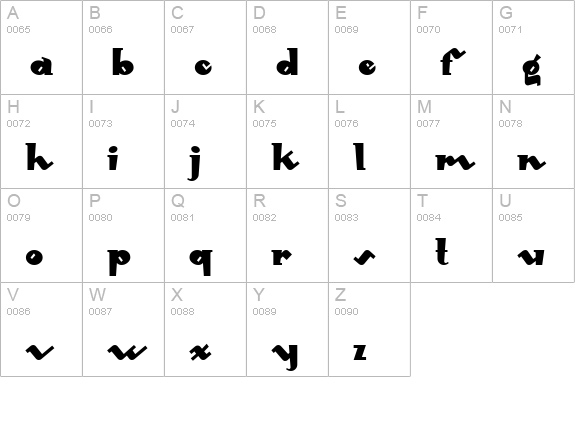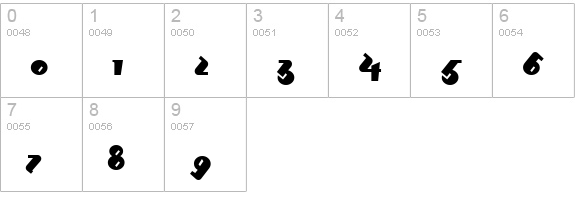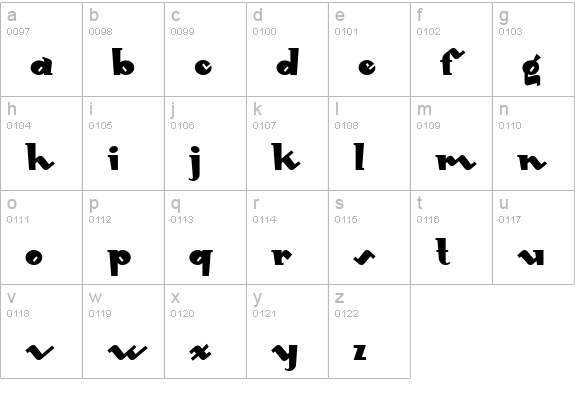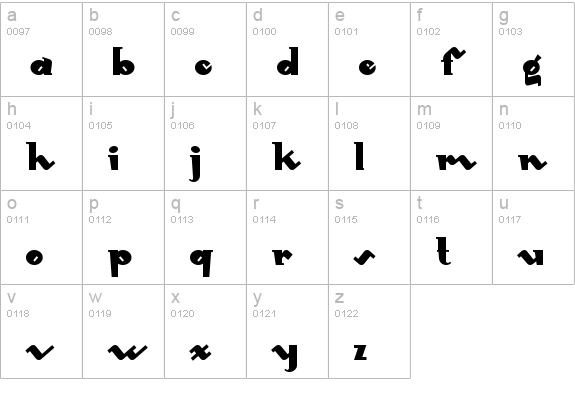
MondoRedondo Font Details
MondoRedondo font is a playful and whimsical typeface that will bring a touch of fun to your designs. With its rounded edges and unique letterforms, MondoRedondo is perfect for adding a pop of personality to any project. This free font is sure to stand out and make a statement with its bold and eye-catching style. You can download MondoRedondo font for free at FontsMarket.com, where you'll find a wide selection of high-quality fonts ready to enhance your creative projects. Don't miss out on this fantastic opportunity to add MondoRedondo to your font collection and take your designs to the next level!